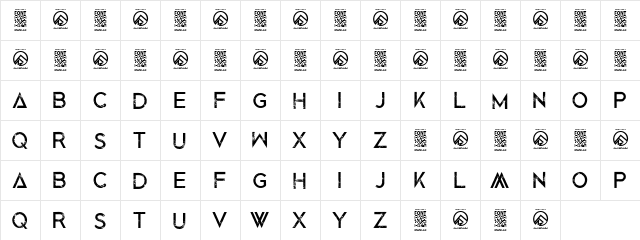
Blacked Out Regular
| Foundry | Font Monger |
| Designer | Font Monger |
Design Context for Blacked Out Typeface
Blacked Out takes a measured approach to typography — its balanced proportions and neutral character make it a reliable workhorse for both digital and print work.
Pro Tip: Use Blacked Out in both headline and body roles to test its range before committing to a single application.